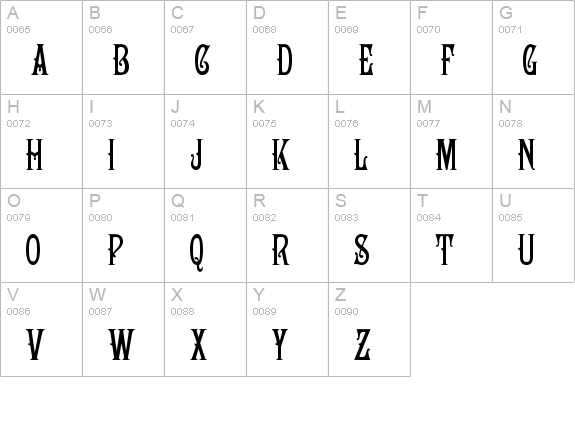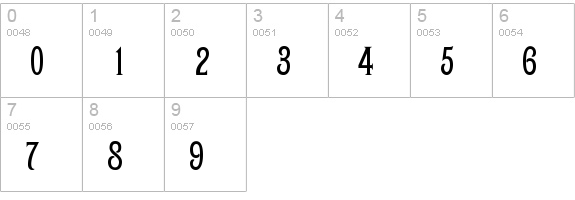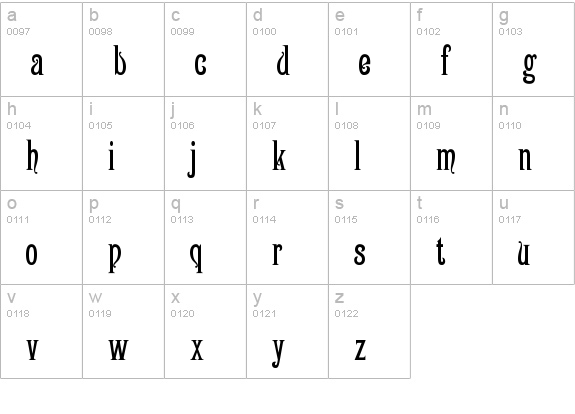
OPTICampanile Font Details
Introducing OPTICampanile font, a modern and stylish typeface that exudes elegance and sophistication. With its sleek lines and clean design, OPTICampanile is the perfect choice for any project that requires a touch of class and professionalism. This versatile font is ideal for a wide range of applications, from branding and advertising to editorial design and packaging. Its unique style will make your text stand out and leave a lasting impression on your audience. And the best part? OPTICampanile is available for free download at FontsMarket.com. So you can add this stunning font to your collection without breaking the bank. Don't miss out on the opportunity to elevate your designs with the timeless beauty of OPTICampanile font. Download it today and start creating!